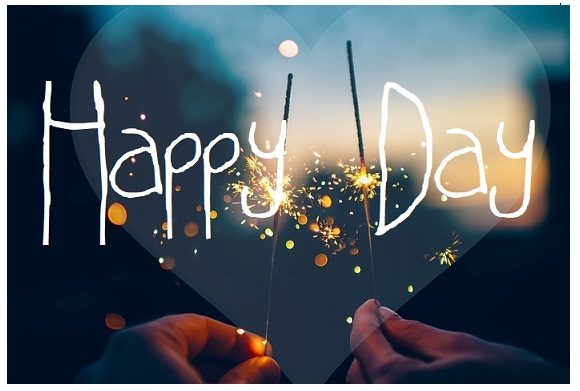
HomeScript FontsHappy Day Font Script Fonts Happy Day Font FacebookXPinterestWhatsApp About Happy Day Font Happy Day is a playful and authentic handwritten font with a unique twist. DOWNLOAD NOW People also explored Calliandra Font Sustans Font Sugar Lorraine Font Atliks Font Vincible Font Anindya Meita Font Open Sea Font Jummiten Font Duo Healthy Font 296 0 TagsHappy Day Font Previous articleMosgrade FontNext articleBushenfil Font LEAVE A REPLY Cancel reply Comment: Please enter your comment! Name:* Please enter your name here Email:* You have entered an incorrect email address! Please enter your email address here Website: Save my name, email, and website in this browser for the next time I comment. Personal Use Free Color Personal Use Free Read more about this font Rionaldo Angelo Personal Use Free Read more about this font Fifteenth Century Personal Use Free Read more about this font Kilsonburg Personal Use Free Read more about this font BLOG Using Fonts in Digital Marketing: Tips to Strengthen Your Brand Identity In the realm of digital marketing, every visual element plays a crucial role in shaping a brand's identity, and fonts are no exception. The... Modern Sans-Serif Fonts That Brands Love in 2025 Top 10 Handwritten Fonts That Elevate Your Designs 5 Fonts That Will Dominate Design Trends in 2026